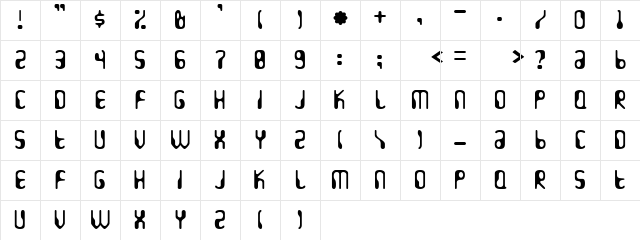
HydrogenWhiskey Regular Free Font
HydrogenWhiskey Regular
Design Context for HydrogenWhiskey
HydrogenWhiskey is a composed and adaptable typeface that performs quietly and consistently across a wide range of design contexts.
Pro Tip: Use HydrogenWhiskey in both headline and body roles to test its range before committing to a single application.